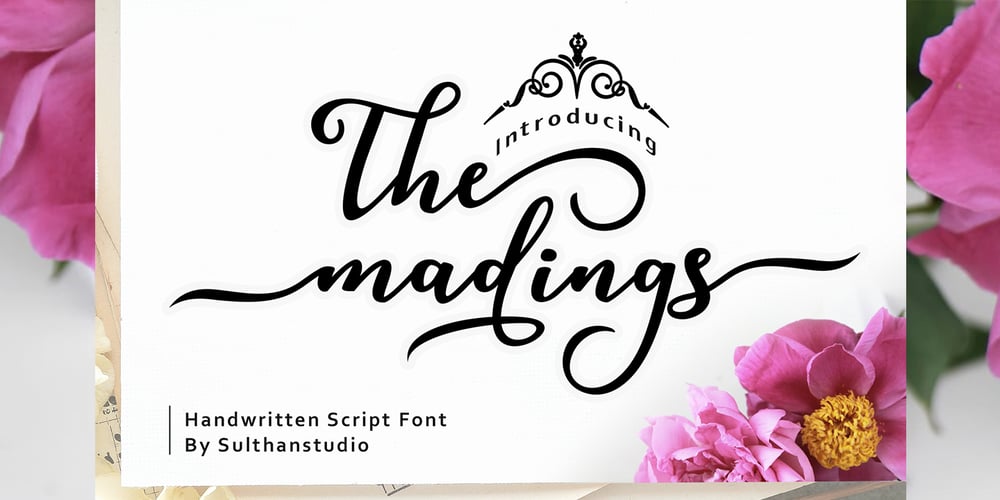
The madings Font Family was designed by Nasrullah and published by Sulthan Studio. The madings contains 1 styles and family package options. This amazing handwritten font is perfect to add to your computer font collection. This bold font is perfect for crafts or cutting. This very charming font can be used anywhere in your projects, such as advertising, branding, graphic design, quotes, wedding designs, logos for online or offline businesses, photography, and more.